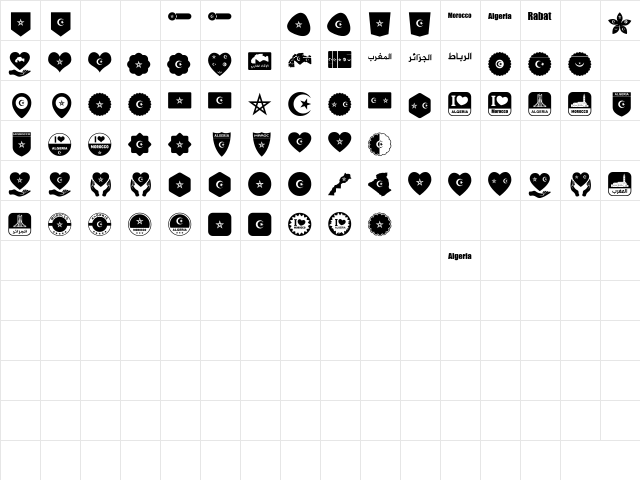
Font Morocco Algeria Regular
| Foundry | elharrak fonts |
| Designer | elharrak fonts |
Design Context for Font Morocco Algeria Typeface
Font Morocco Algeria is a composed and adaptable typeface that performs quietly and consistently across a wide range of design contexts.